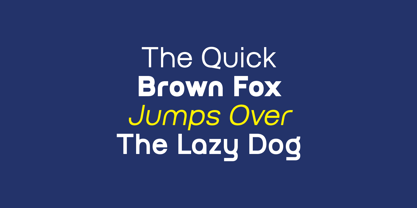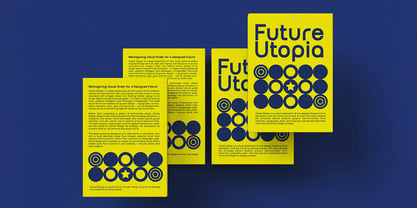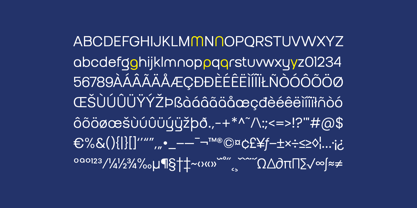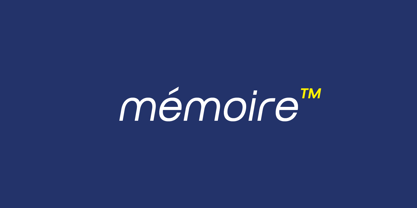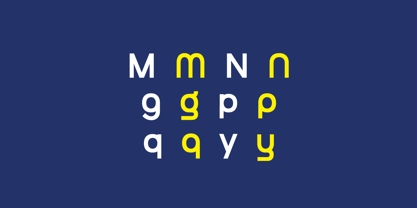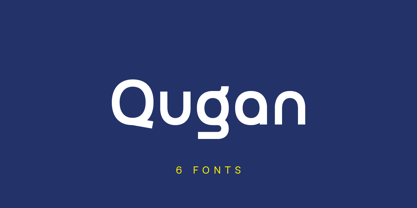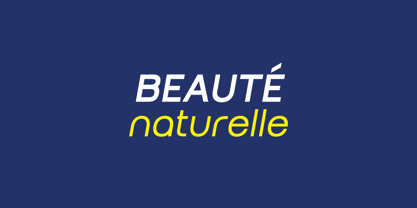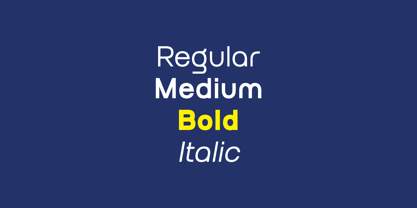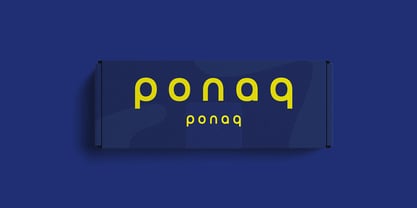
Qugan
The Qugan Font Family was designed by Iqbal Pauji and published by Typebae. Qugan contains 6 styles and family package options. More about this family
Qugan is a versatile font designed specifically for logos and branding. Each character is carefully crafted to create strong, memorable logos, while the regular version remains comfortable and readable for longer text. You can easily build and use high quality logos with confidence. Features: Uppercase, Lowercase, Numerals, and Punctuation Stylish alternate glyphs Multilingual support and PUA encoded